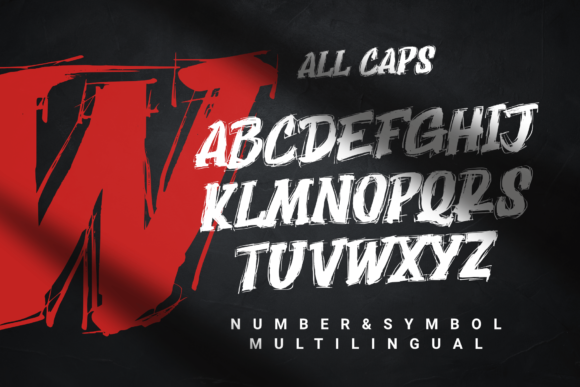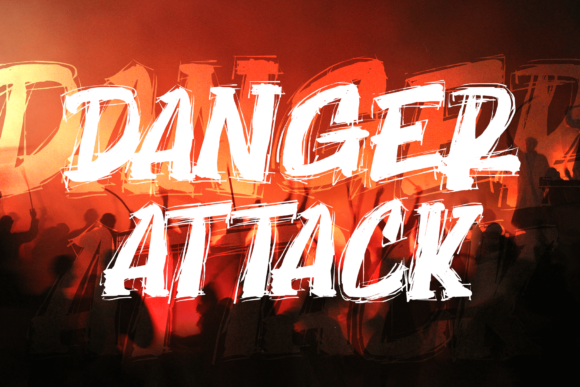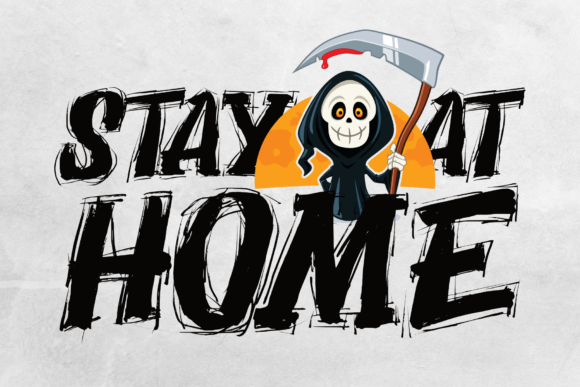
Introduction to Dark Mage Font
Dark Mage is a modern and quirky display font with a spooky feel.
Dark Mage is the perfect font for making original and outstanding designs .
Key Features of Dark Mage Font
Why Choose Dark Mage Font?
Dark Mage Font offers exceptional quality and versatility, making it a valuable addition to your design toolkit. Whether you’re creating for personal projects or commercial use, Dark Mage Font delivers professional results.